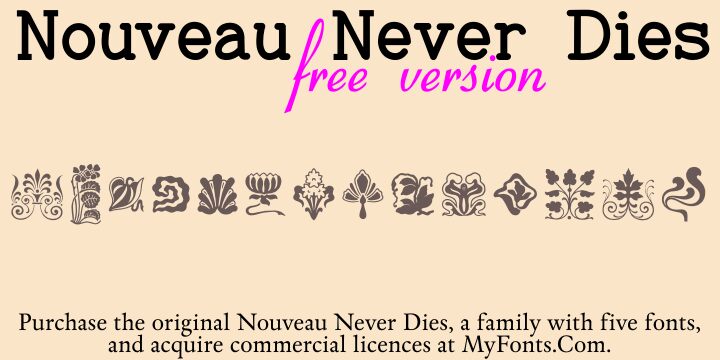
Nouveau Never Dies by Paulo W. is a free Art Nouveau dingbat font filled with botanical emblems and decorative flourishes. The symbols favor sinuous outlines, dark filled shapes, and sharp interior cuts that recall period ironwork and printed ornament. Flowers, shells, leaves, and birdlike curves recur across the set, yet each piece has its own compact silhouette with real variety.
Poster design is the clearest match, since these ornaments can frame a title or become a central emblem, and the same floral detail also suits perfume packaging, wedding invitations, and decorative publishing. Its strongest role is turning a simple border into period artwork.